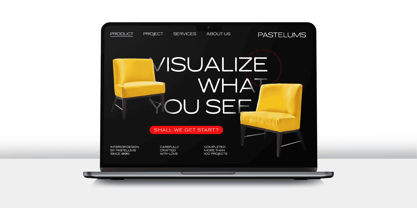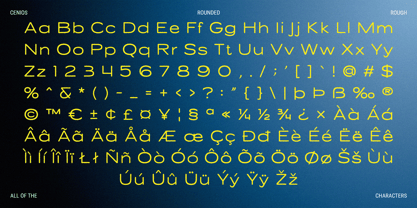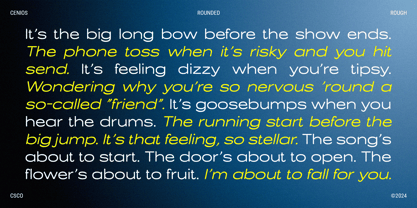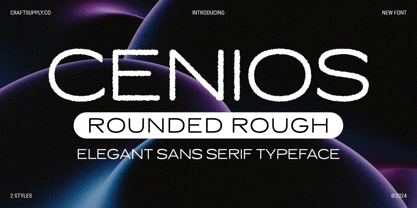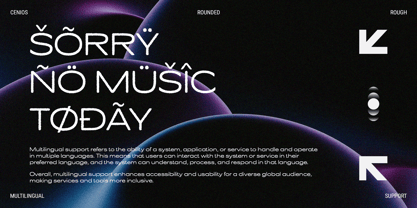
Cenios Rounded Rough
by Craft Supply Co
The Cenios Rounded Rough Font Family was designed by Trio Nazzar Saputra, Wahyu Hadi Yuana and published by Craft Supply Co. Cenios Rounded Rough contains 2 styles and family package options. More about this family
Cenios Rounded Rough: Modern Sans-Serif with Textured Warmth Rounded and Expanded Form Cenios Rounded Rough is a modern sans serif font distinguished by its rounded and expanded letterforms. The rounded shapes provide a friendly, approachable feel, enhancing readability with their soft, curved design. The expanded form increases letter width, improving visibility and making the text stand out in various applications. Textured Rough Effect The rough effect introduces a unique, slightly uneven texture to this rounded rough font, adding depth and character to the font. This textured finish complements the rounded shapes, creating a visually engaging and dynamic appearance that combines softness with a rugged touch. Versatile and Artistic Ideal for a wide range of design projects, this rounded rough font strikes a balance between warmth, readability, and artistic flair. Its friendly curves and textured finish make it suitable for branding, promotional materials, and graphic design, where a prominent visual presence is needed. Whether for modern marketing or creative visuals, this font offers a distinctive blend of style and functionality.
Designers: Trio Nazzar Saputra, Wahyu Hadi Yuana
Foundry: Craft Supply Co